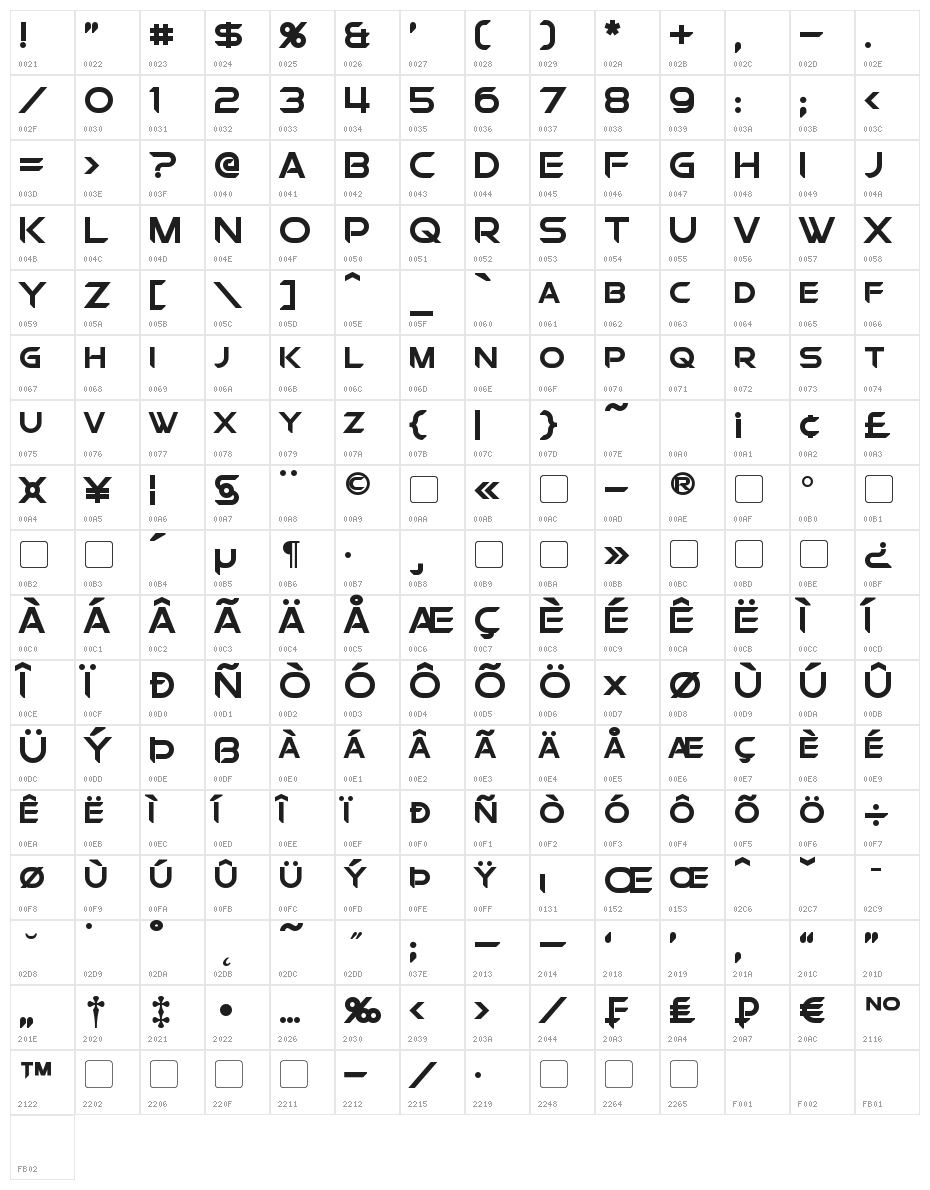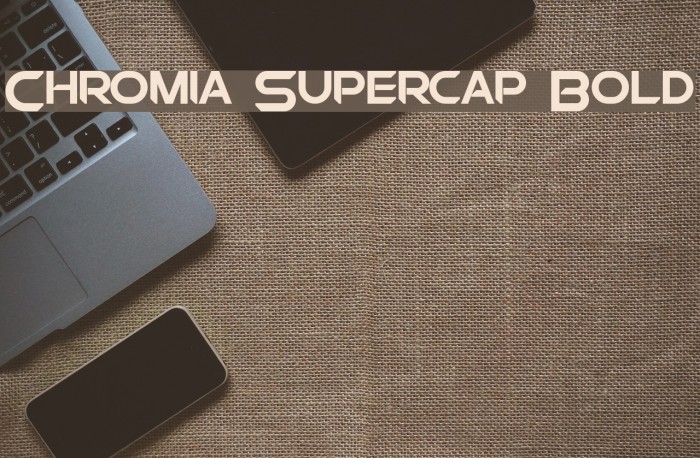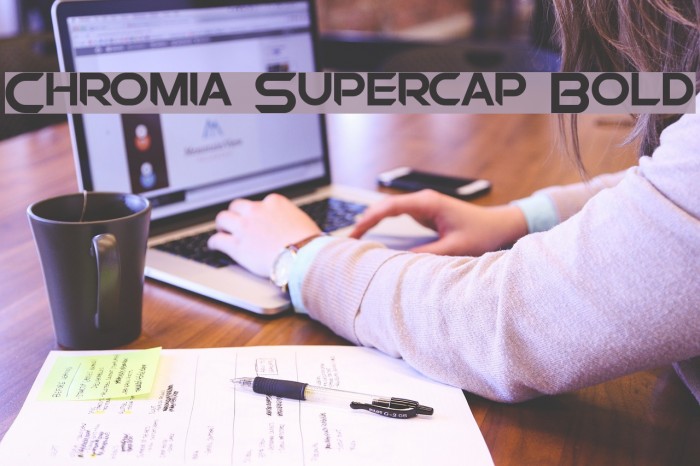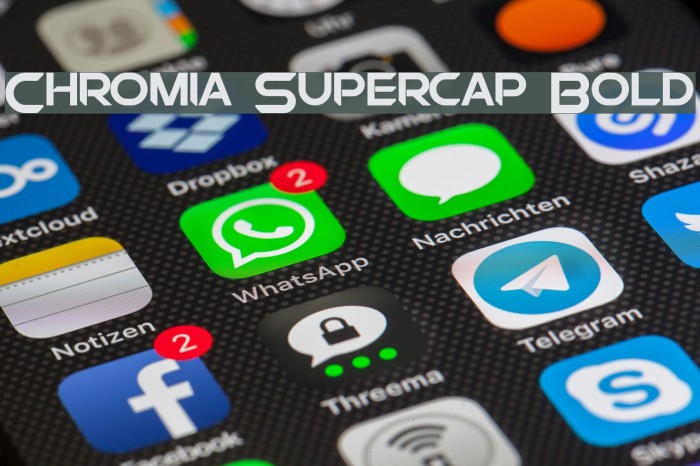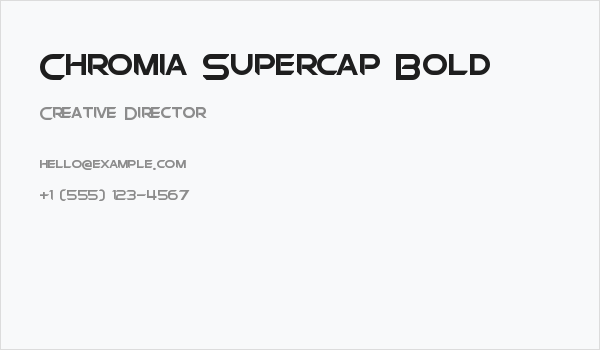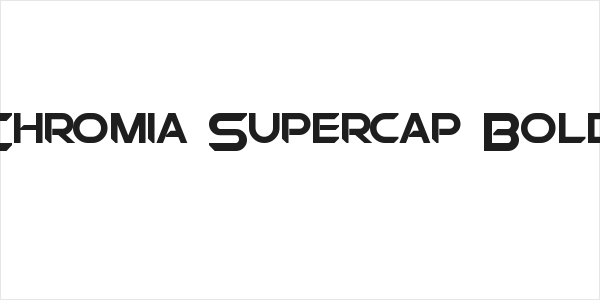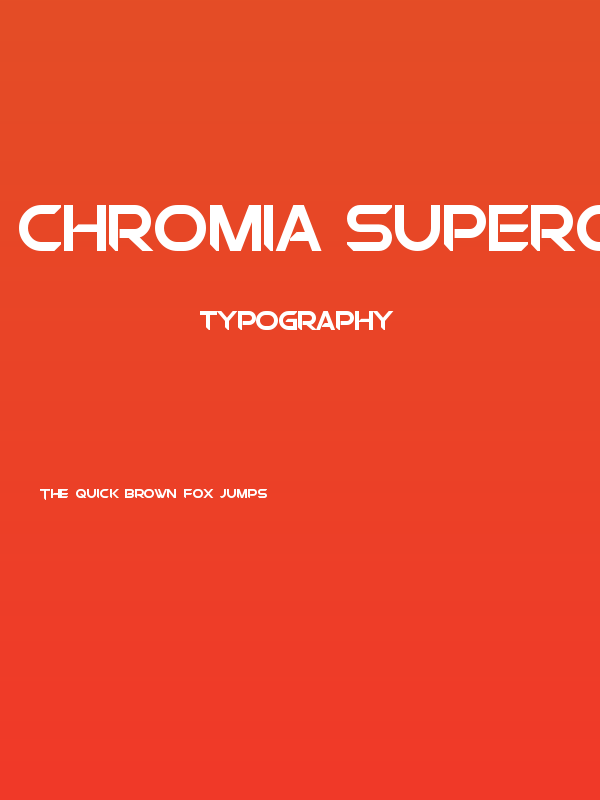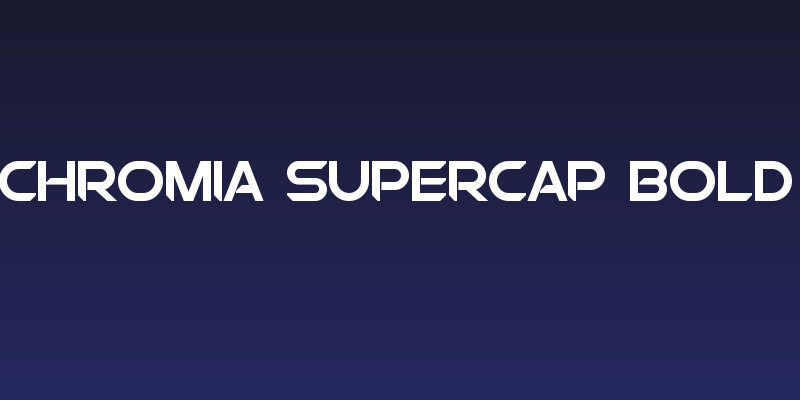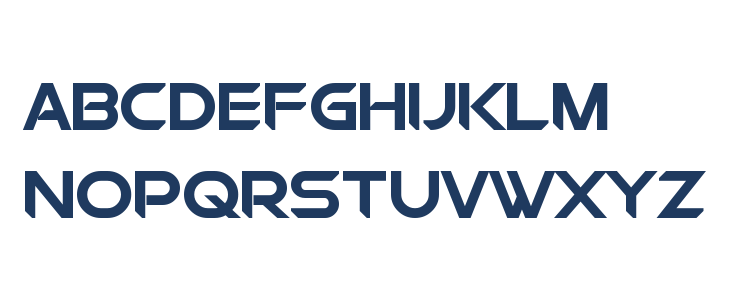
Chromia Supercap Bold Font
Chromia Supercap Bold Description
This font features a bold and futuristic design with geometric shapes and sharp angles. The characters are crafted with a strong presence, making them ideal for attention-grabbing headlines and modern branding. The uppercase and lowercase letters maintain a consistent style, with a unique blend of straight lines and curves. The numerals and special characters complement the alphabet with the same bold and structured appearance. This font's design is perfect for projects that require a modern and impactful look.